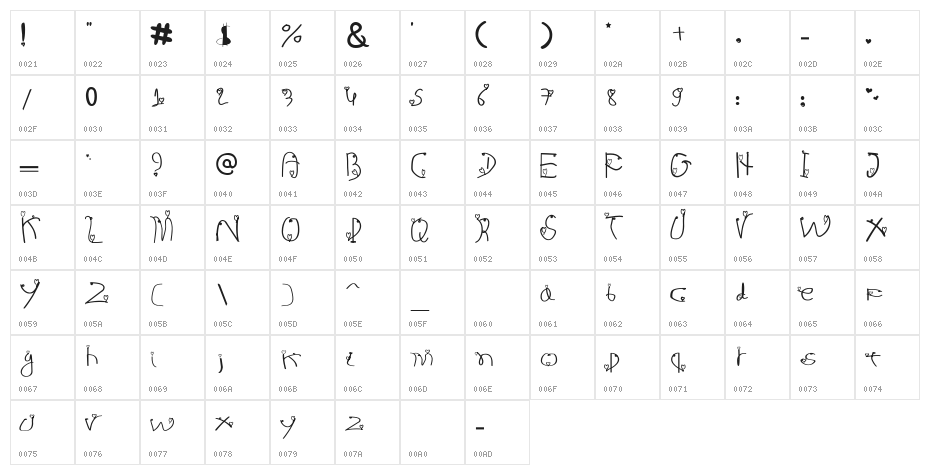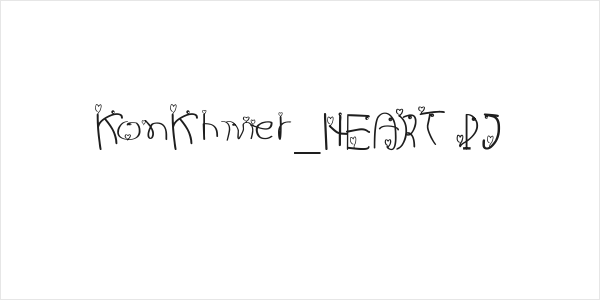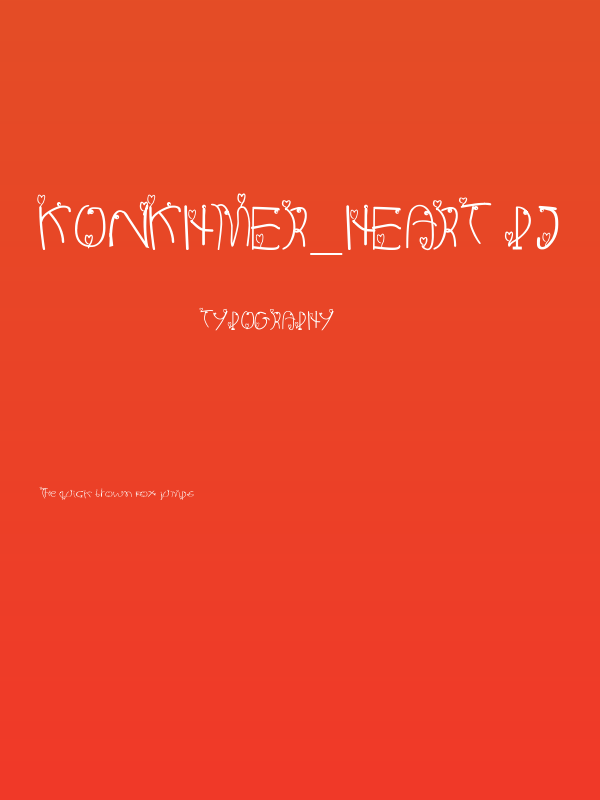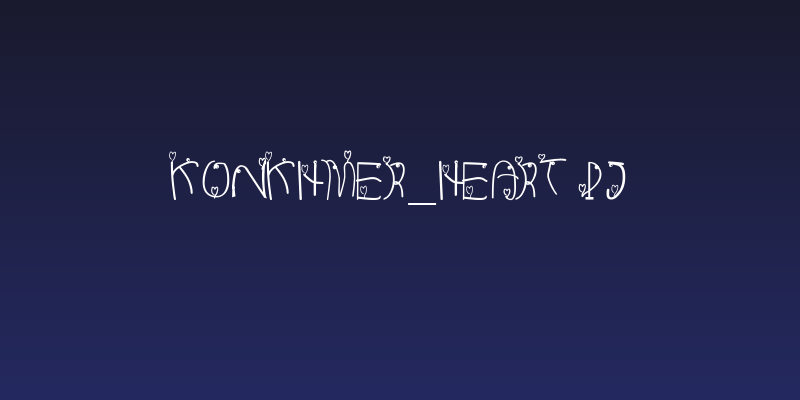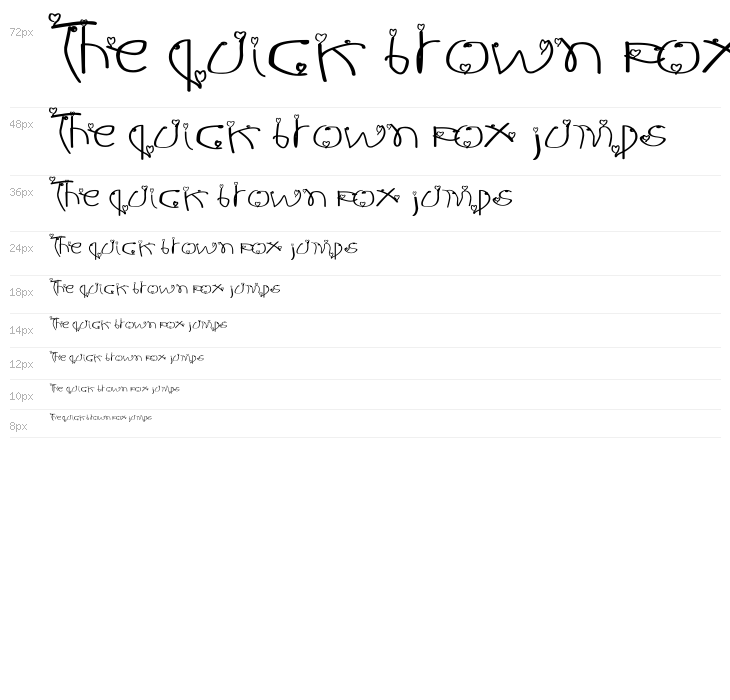
KonKhmer_HEART PJ Font
KonKhmer_HEART PJ Description
This whimsical and decorative font features playful heart motifs integrated into each character, creating a charming and romantic aesthetic. The uppercase and lowercase letters are designed with a consistent flow, incorporating heart shapes at the ends of strokes and within the curves. The numbers and special characters maintain this theme, ensuring a cohesive look across all elements. The font's unique style makes it ideal for projects that require a touch of elegance and playfulness, such as wedding invitations, Valentine's Day cards, or any design that aims to convey love and affection.
| Proposed Projects | Ideal for wedding invitations, Valentine's Day cards, love-themed posters, and playful branding. |